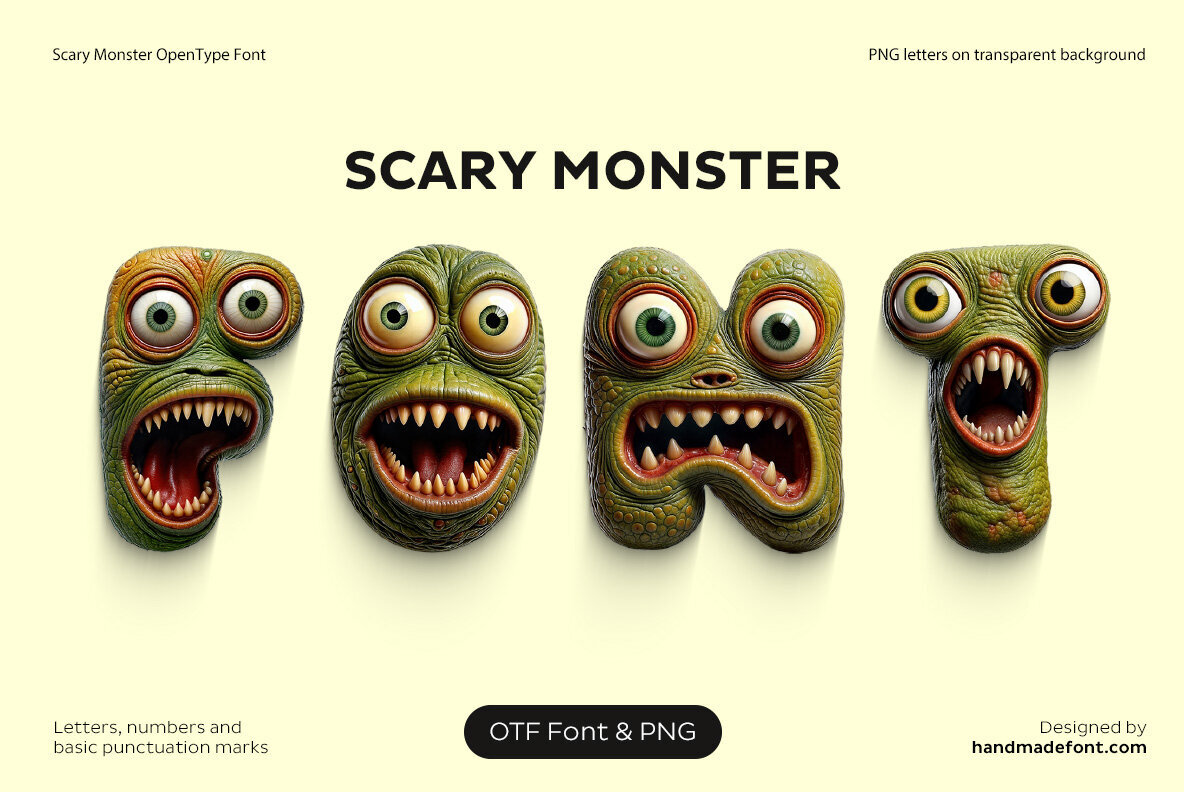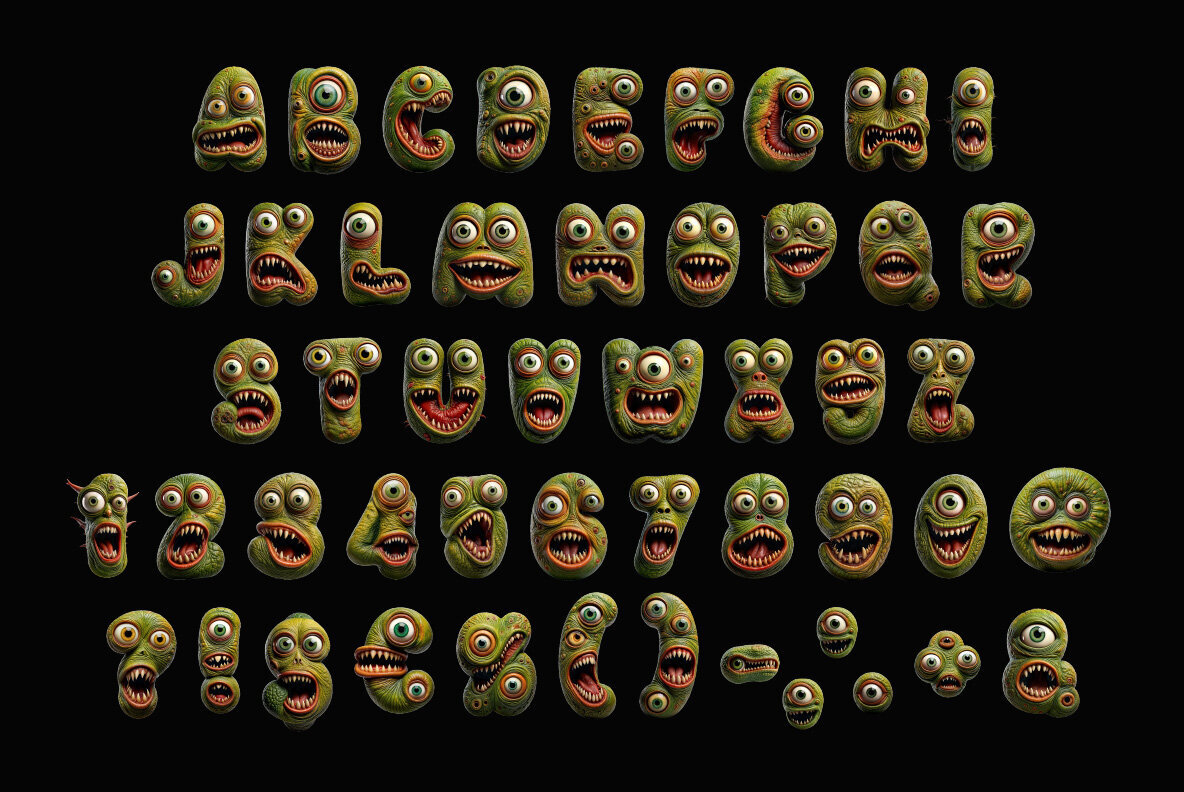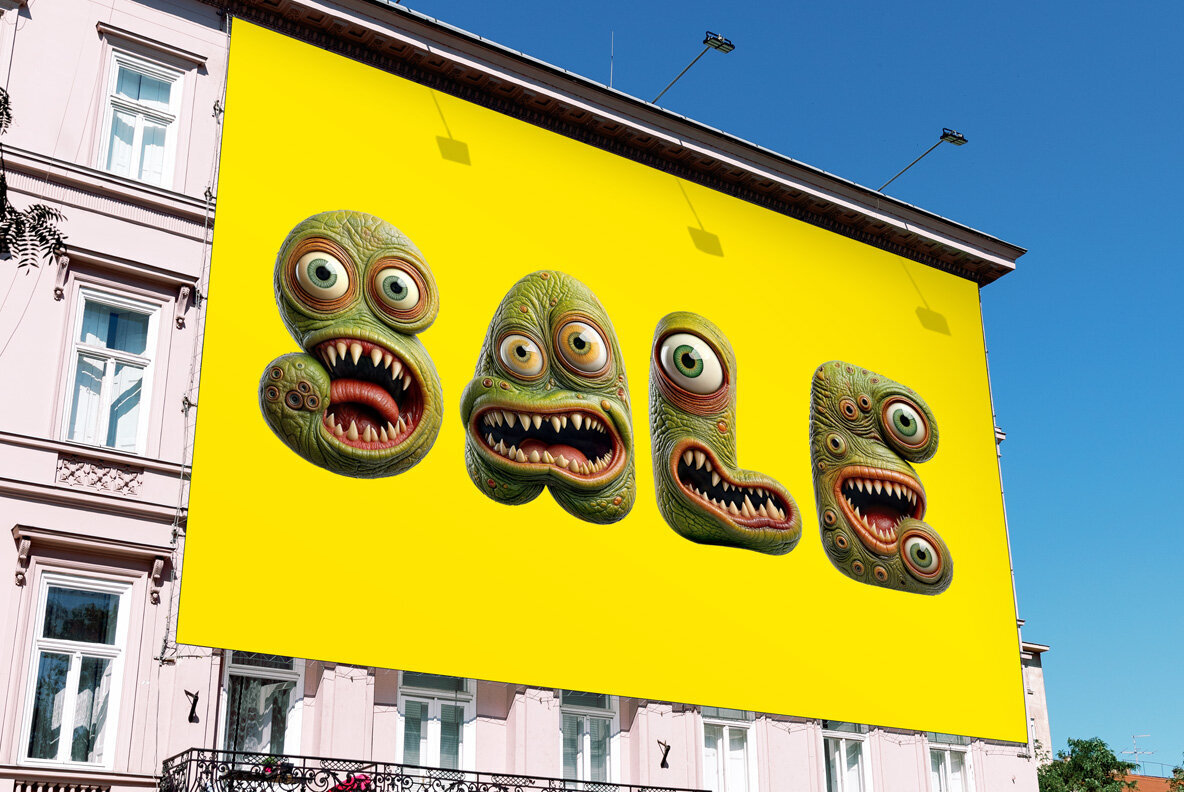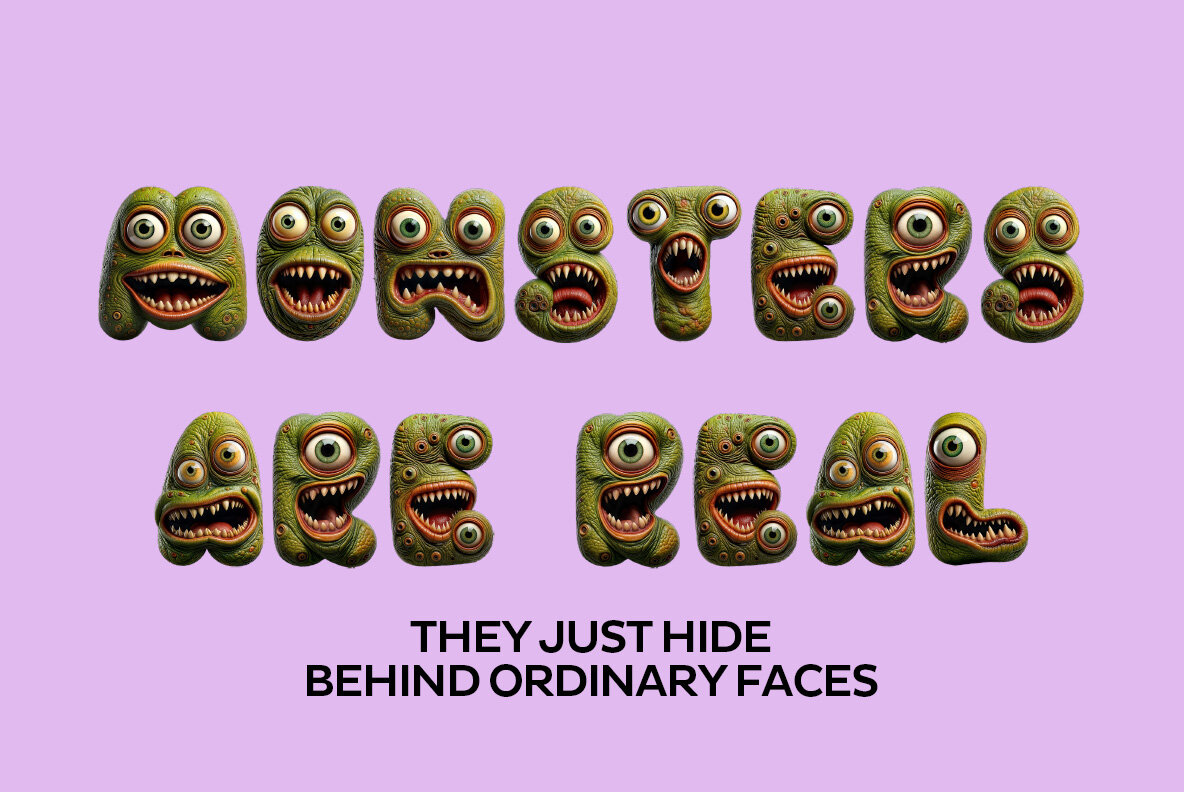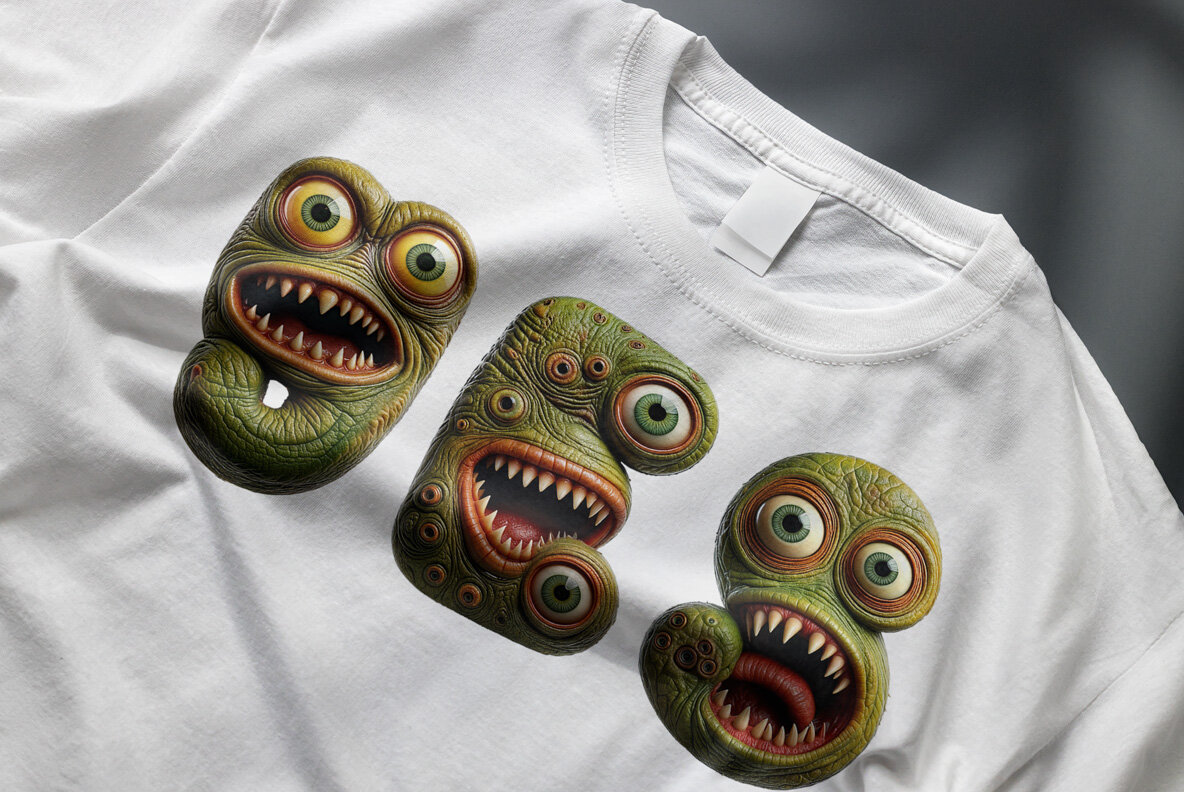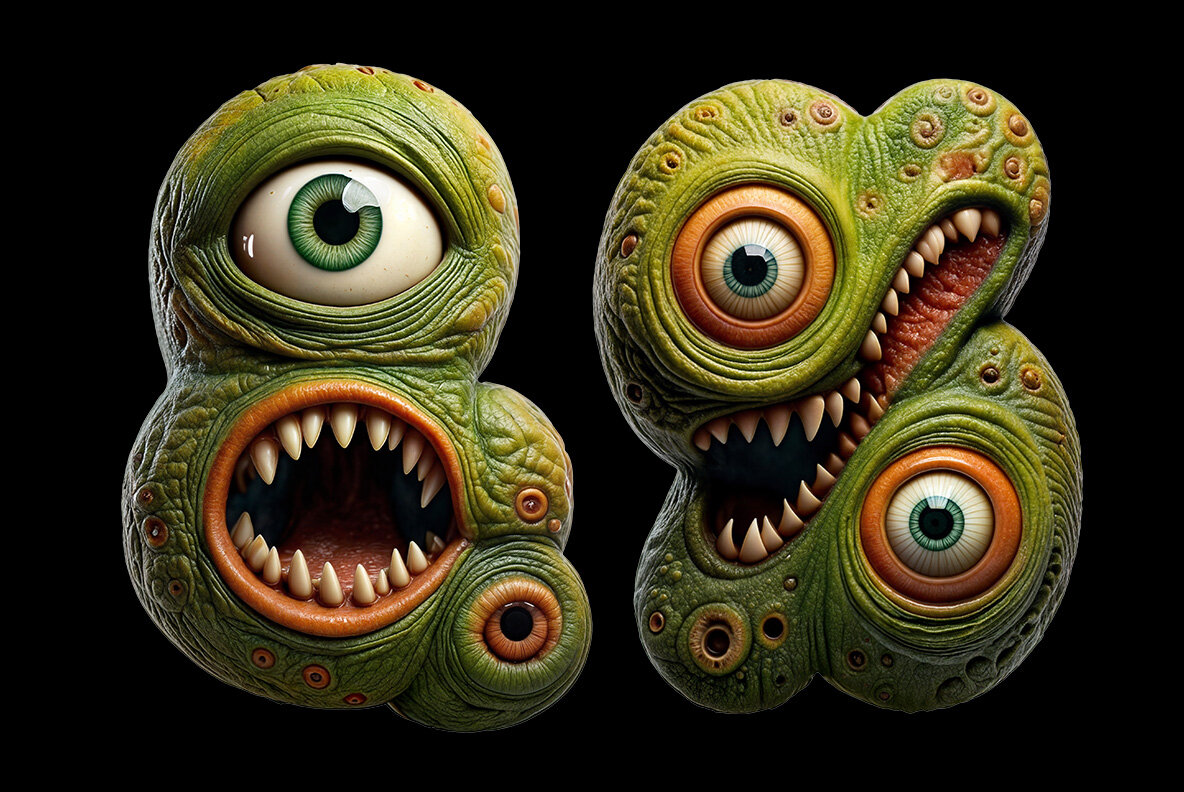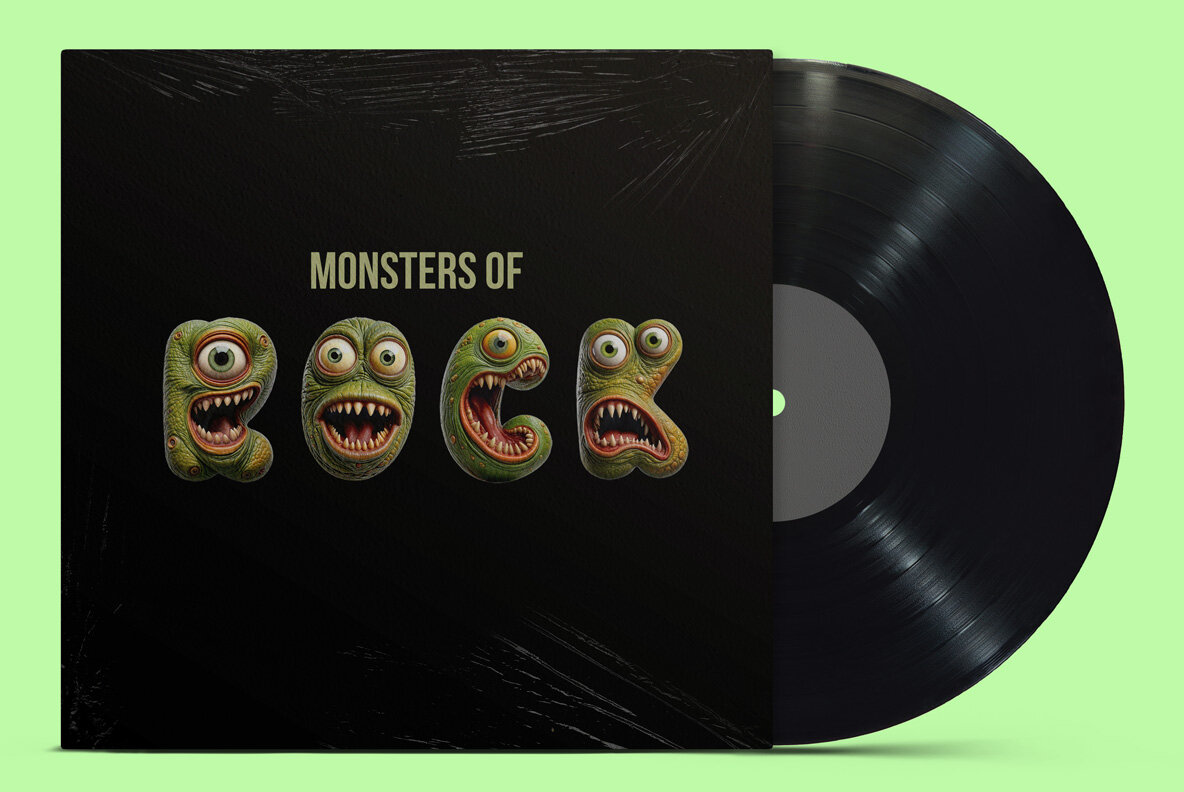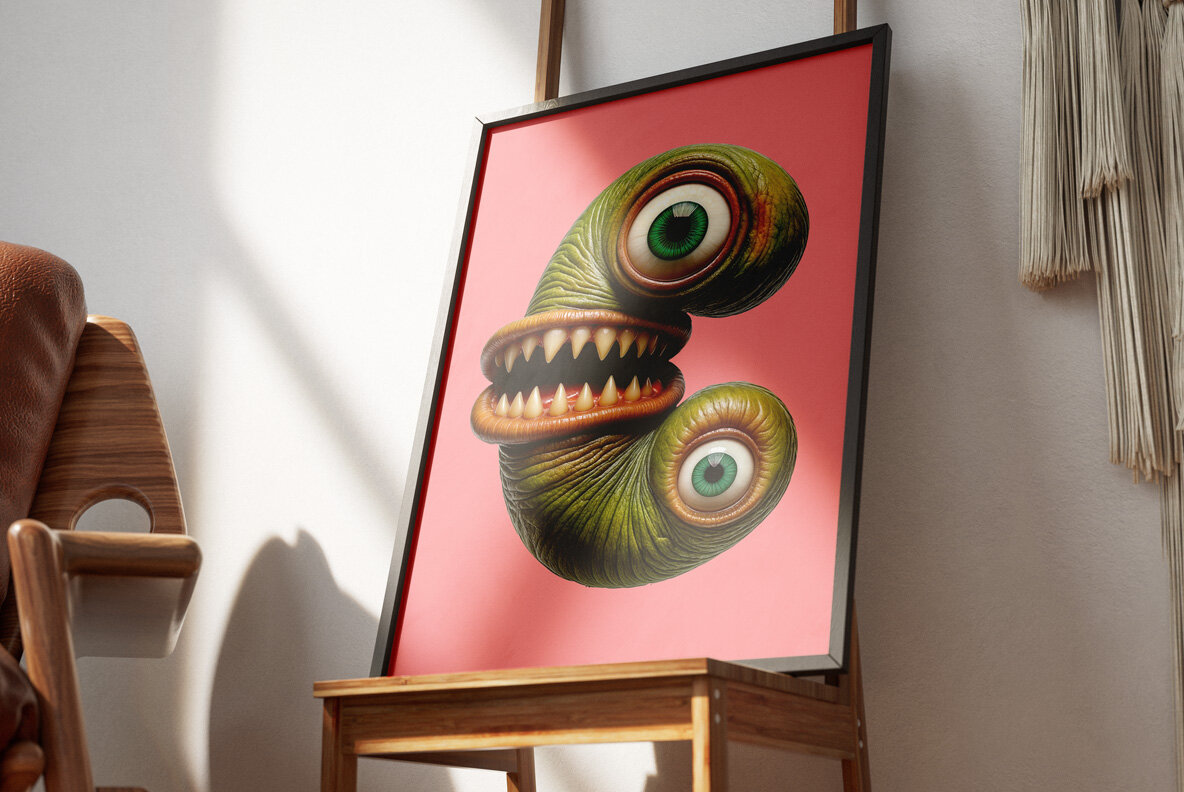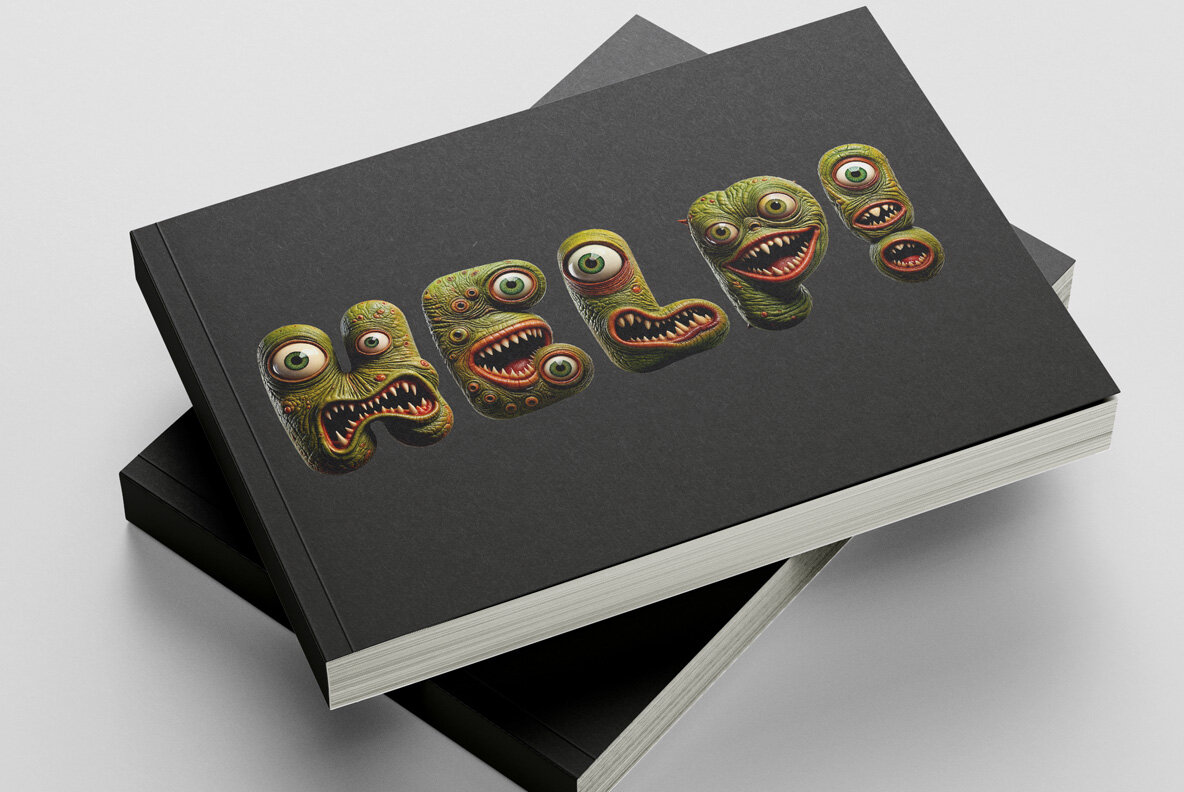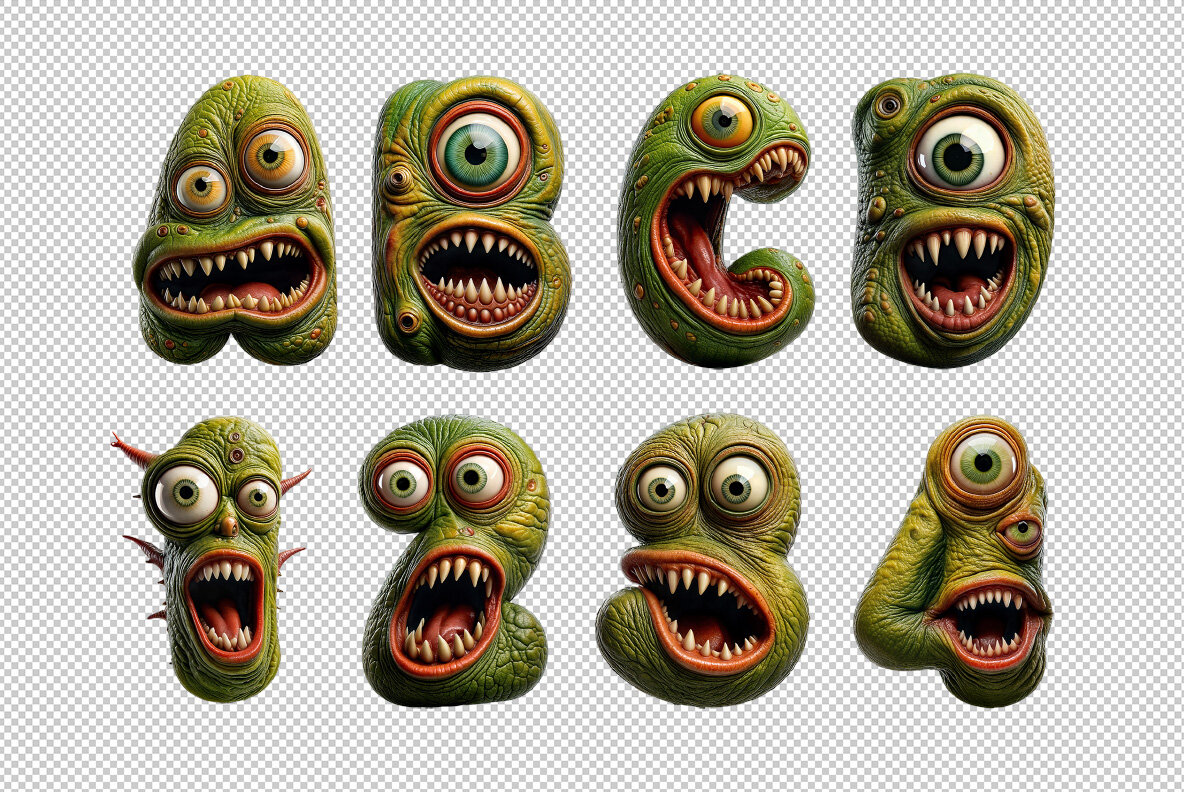
The Scary Monster Font brings a quirky blend of spooky and silly to your designs with its unique monster-inspired alphabet. Each letter is creatively designed as a green, warty creature, featuring bulging eyes, gnashing teeth, and an overall goofy personality. Perfectly suited for projects that require a touch of animated chaos or eerie hilarity, this font makes your text come alive, growling and giggling with character.
This high-definition OpenType font is perfect for various creative applications, featuring uppercase characters, numerals, and basic punctuation. The font's draw height is approximately 800 pixels, ensuring bold and eye-catching typography. As a color OpenType file, it is compatible with apps supporting color bitmap fonts such as Photoshop, Illustrator, and InDesign, among others. Additionally, each letter is available as an individual PNG file with a high resolution of 4000x4000 px, accommodating graphic software that supports PNG format.